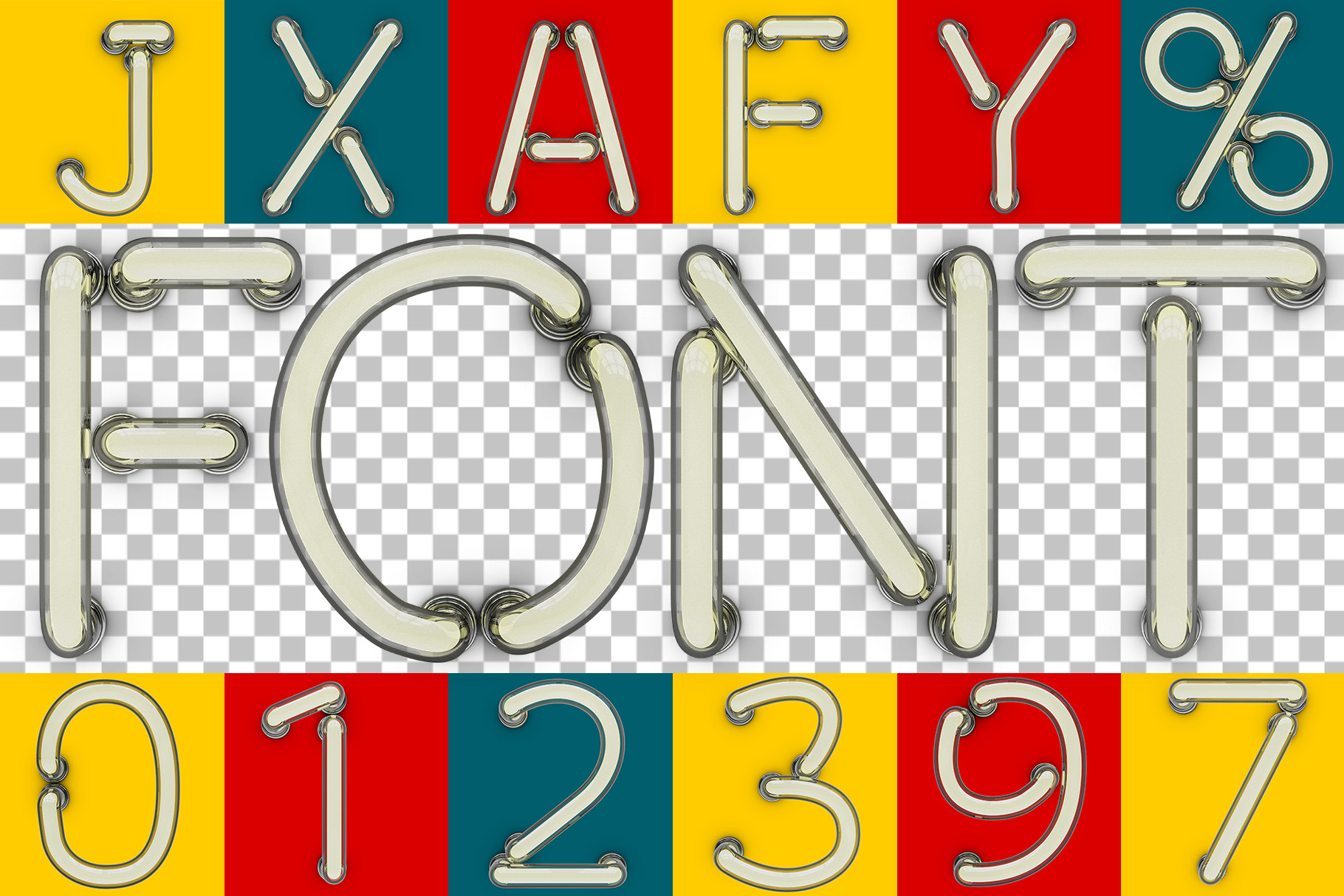
Neon tube font
Neon tube letters and digits on transparent background. 3D rendering
A set of 26 neon letters of the English alphabet, 10 digits and percent symbol